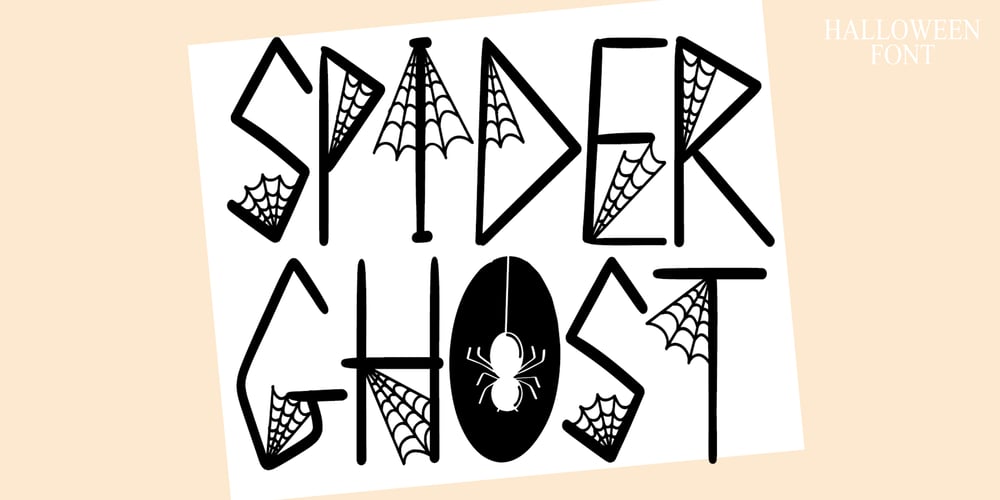
SPIDER GHOST Font Family was designed by Ahmad Afandi and published by Letterafandi Studio. SPIDER GHOST contains 1 styles and family package options. Spider Ghost is a Halloween decorative font. Add it to your Halloween crafts, horror movie posters, t-shirts and anything else that requires a spectacular look.